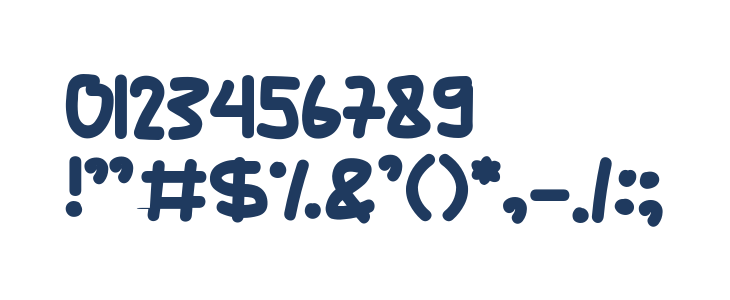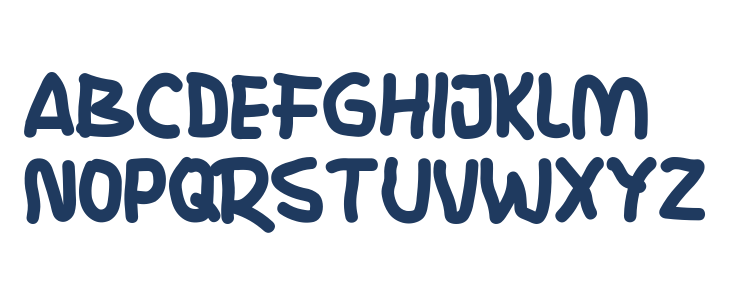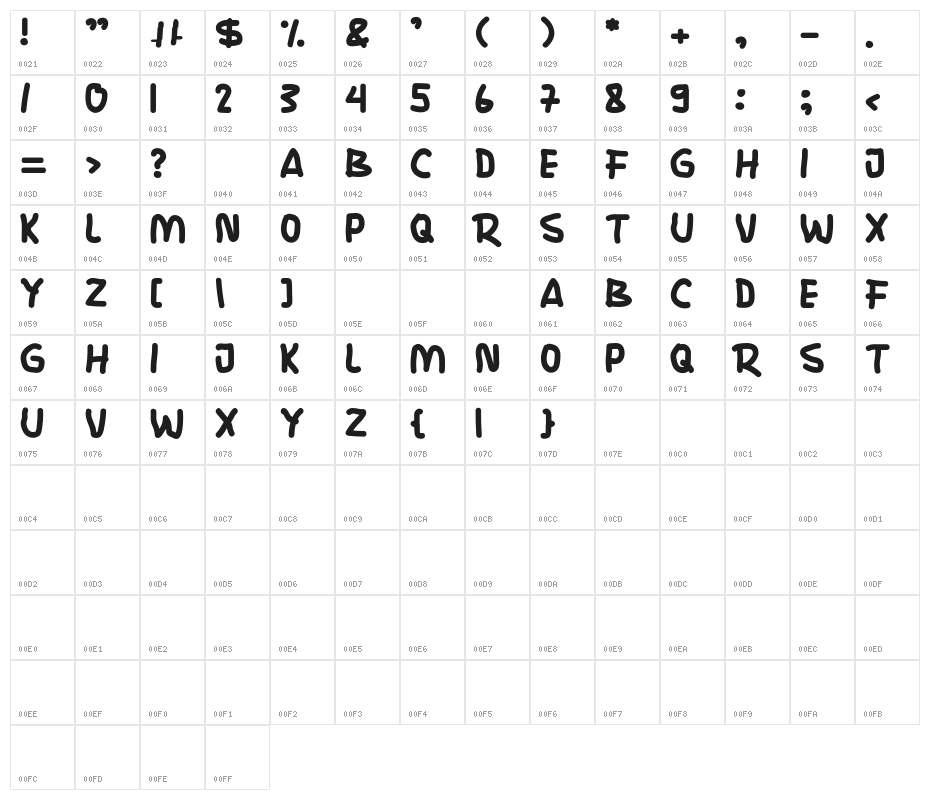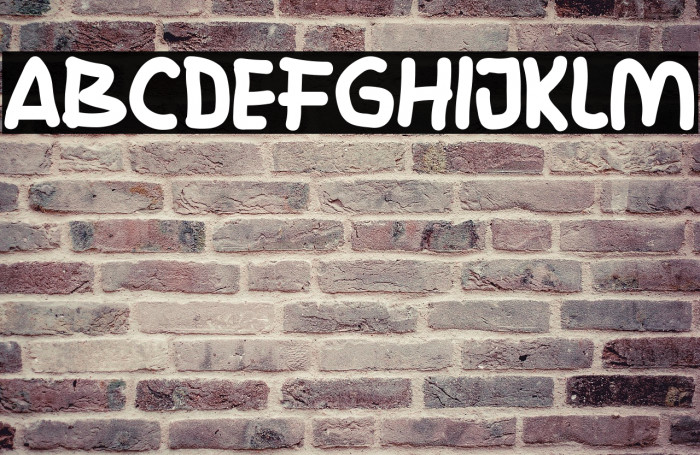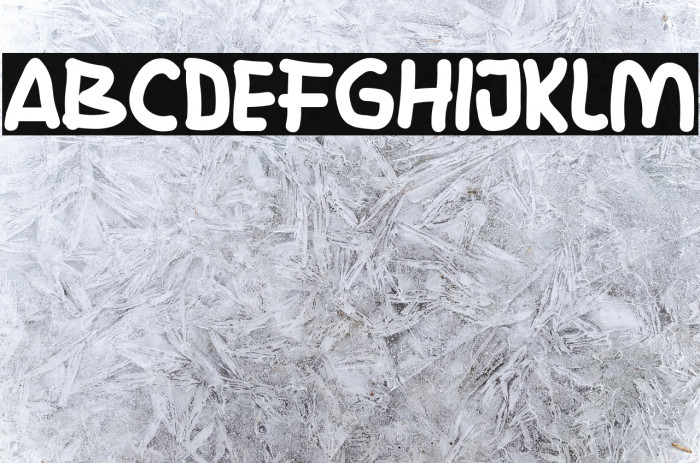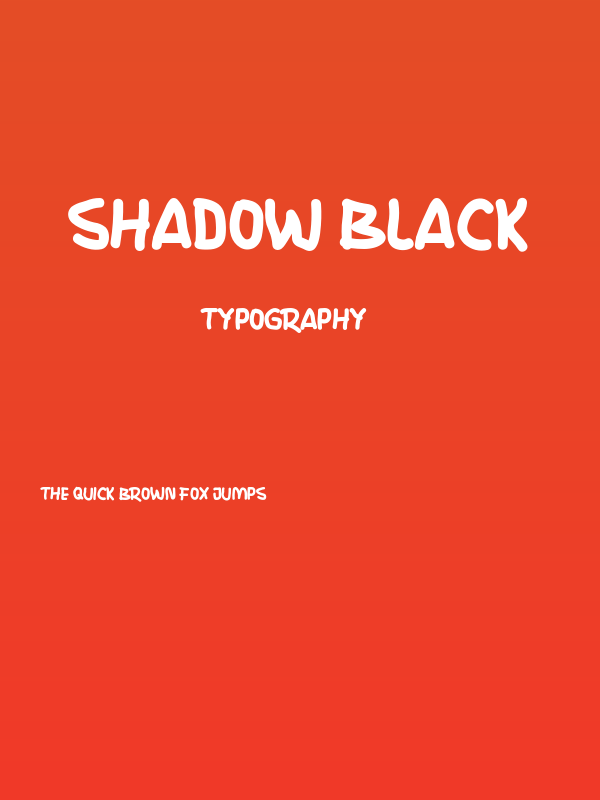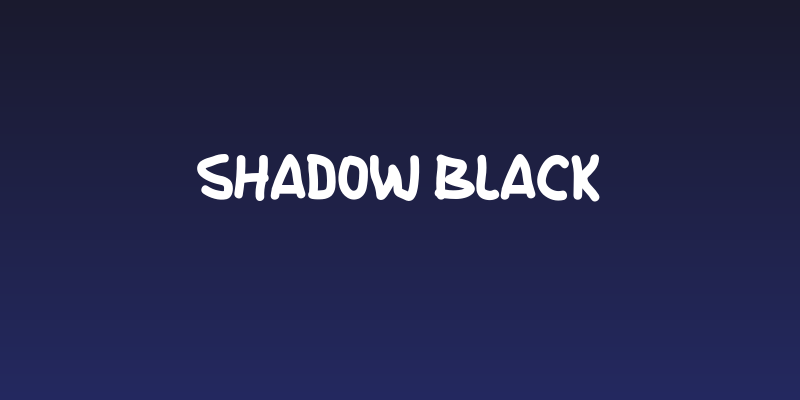
Shadow Black Font
Shadow Black Description
A playful, bold, handwritten-style font with rounded edges and thick strokes, giving it a casual and friendly appearance. The characters are slightly irregular, enhancing the informal, hand-drawn feel.
| Overall Style | Playful, Decorative, Casual |
| Use Case | Headlines, Logos, Posters, Informal invitations |
| Proposed Projects | Children's books, posters, comic titles, playful branding, greeting cards. |